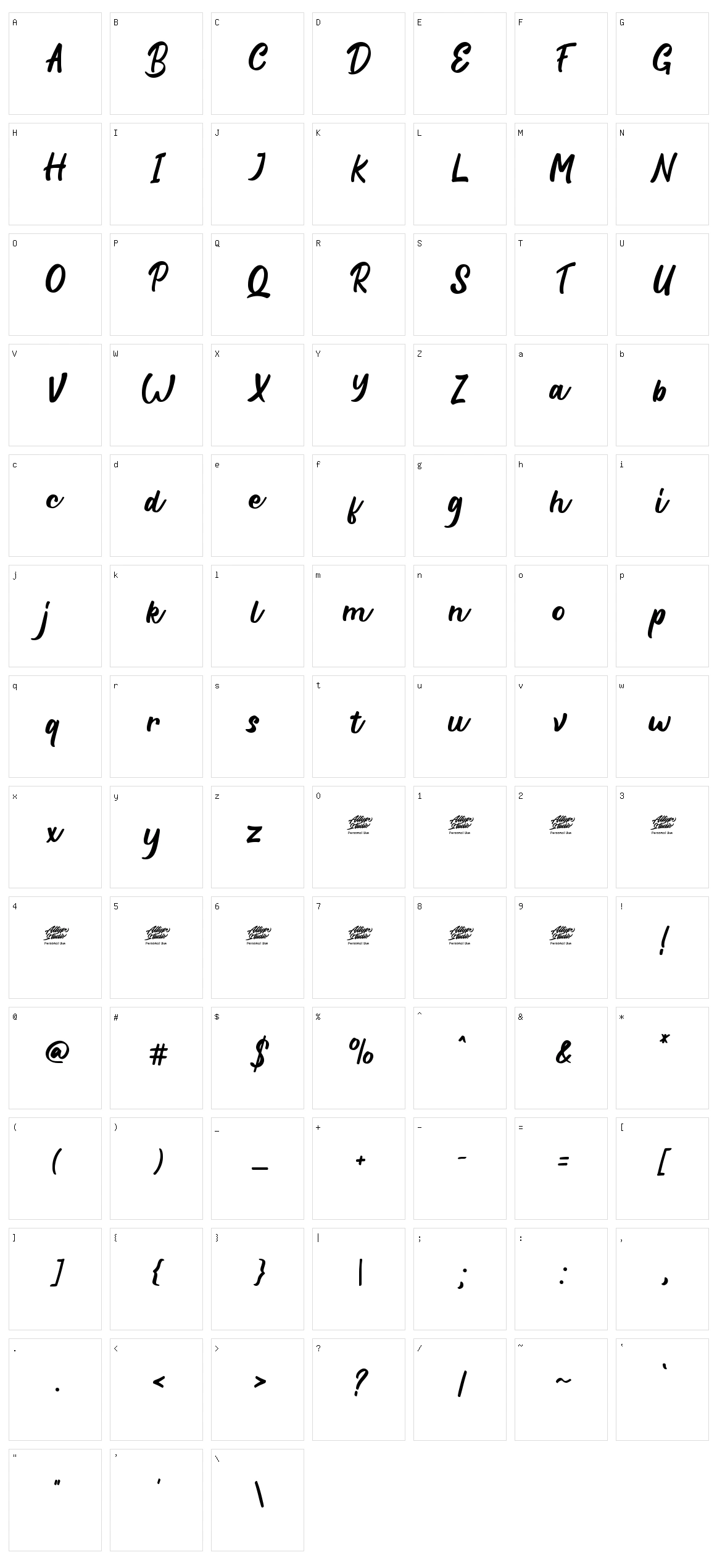
The free font Battina is carefully designed by Attype Studio, showcasing a thoughtful balance of creativity and usability and falls under the Old-School font style. When you download the ZIP file, it contains only 671.34 KB of font files, making it lightweight and quick to download. Please review the license details below to understand permitted usage and distribution rights. If license information is not available, we recommend using this font for personal projects only or contacting the author directly for commercial usage permissions.